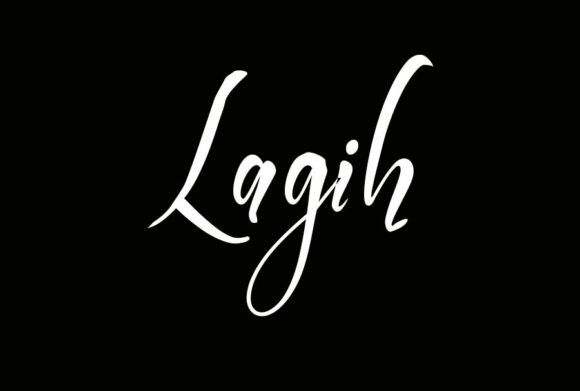
Introduction to Lagih Font
Have you ever been working on a creative project, pouring your heart and soul into every detail, only to feel like something’s missing? Maybe it’s the perfect font to bring your vision to life. That’s exactly where Lagih Font comes in – a high-quality script font that adds a touch of whimsy and charm to any design.
With its playful characters that seem to dance along the baseline, Lagih Font is the perfect design resource for designers looking to elevate their creative projects. Whether you’re working on a branding project, a wedding invitation, or a social media campaign, Lagih Font is sure to make your ideas stand out. And the best part? You can download it for free, with a transparent background, making it easy to integrate into your design workflow.
As a valuable addition to any designer’s toolkit, Lagih Font is a game-changer for anyone looking to add a personal touch to their work. So why wait? Explore the world of Lagih Font and discover how it can take your designs to the next level.
Key Features of Lagih Font
- Unique, modern design with a transparent background for flexibility
- Includes 1000+ glyphs, covering a wide range of languages
- Supports OpenType features for advanced typography and layout control
Honest Review: Lagih Font
I recently came across the Lagih Font while searching for a free download to enhance a creative project. As a designer, I was thrilled to discover this high-quality design resource. One of the standout features of the Lagih Font is its beautiful, elegant design that can add a touch of sophistication to any project. ✨
- Transparency: The Lagih Font comes with a transparent background, making it easy to customize and use in various design applications.
- Flexibility: The font is available in multiple weights, allowing designers to choose the perfect style for their project.
However, I did notice a few limitations with the Lagih Font. ⚠️ The font may not be compatible with all operating systems, and some users may experience issues with font rendering.
Overall, I’m impressed with the Lagih Font and would recommend it to designers looking for a high-quality, free design resource. With its elegant design and transparent background, the Lagih Font is a great addition to any creative project.
Lagih Font
The Lagih Font is a high-quality design resource available for free download. It’s perfect for creative projects that require a unique and stylish touch.
The Lagih Font is perfect for:
- Creating eye-catching headings and titles
- Designing stylish logos and branding materials
- Adding a unique touch to presentations and documents